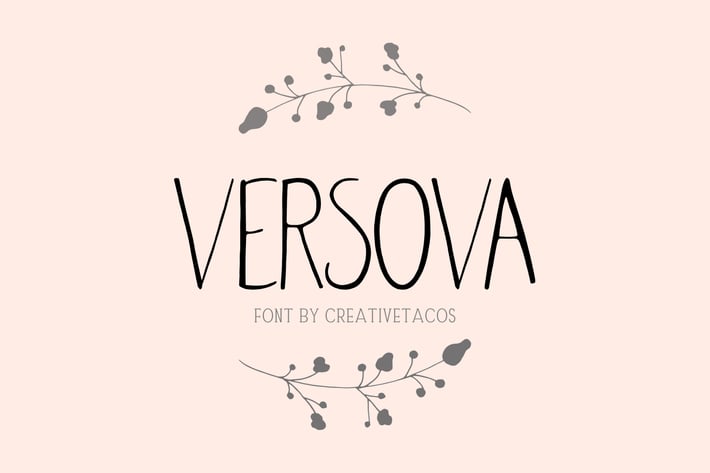
Versova Handmade Font
Versova is a modern and beautiful script typeface which will add charm into your designs. It contains uppercase and lowercase alphabet, numbers, punctuation, symbols with multilingual support. This font will pair beautifully with signature, sans serif or handwriting style. Versova can be used for headlines, posters, branding, packaging, presentations, logo, quotes, titles, magazines headings, web layouts, advertising, invitations, packaging design, books, and nearly any creative design.
Versova Font Features:
- Uppercase Letters
- Lowercase Letters
- Non English Characters ( Latin Supplement + Latin Extended A)